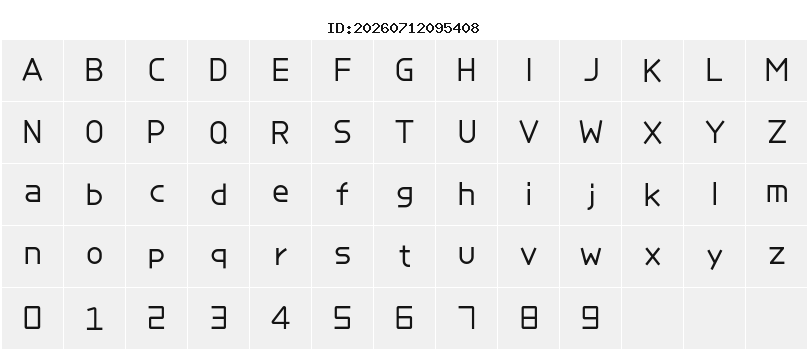
爱点风雅黑 Preview
• Designer: 李文达、陈嘉如
• Manufacturer: 爱点视觉
爱点风雅黑.ttf is a modern, elegant sans-serif font designed for ultimate readability and visual harmony. Perfect for branding, headlines, web design, and print materials.